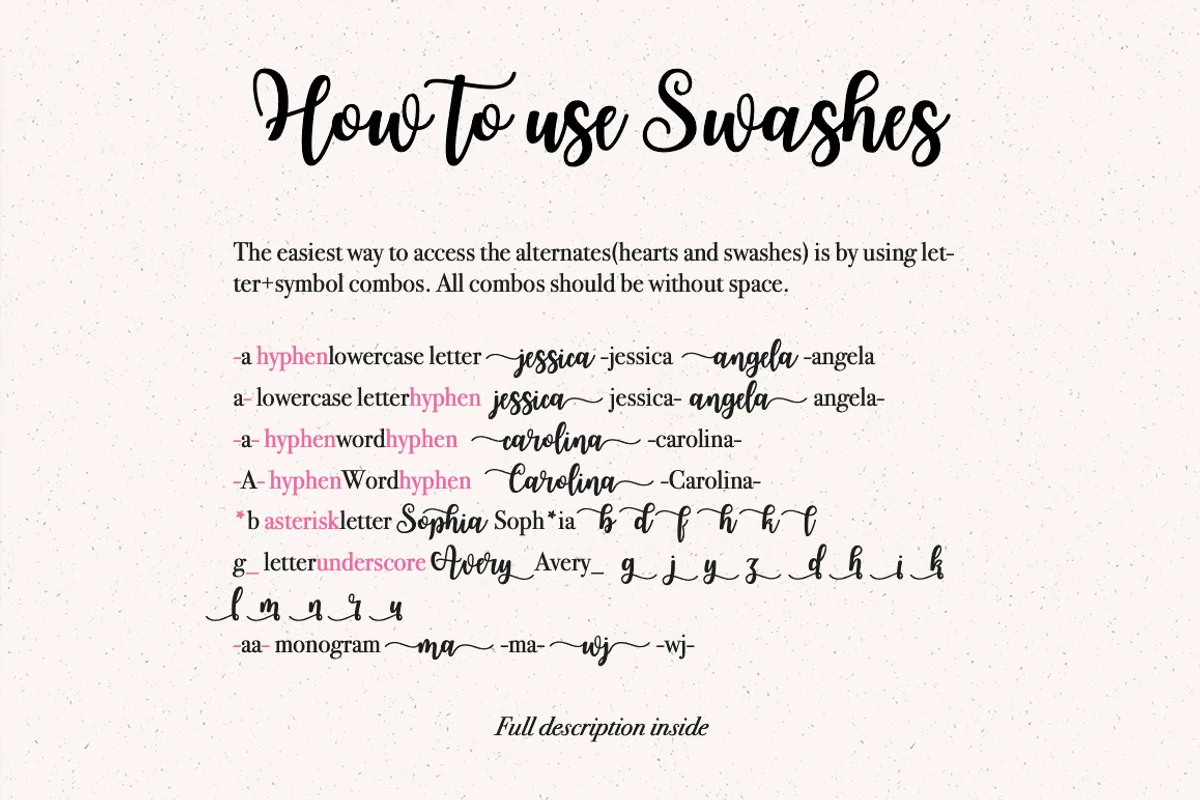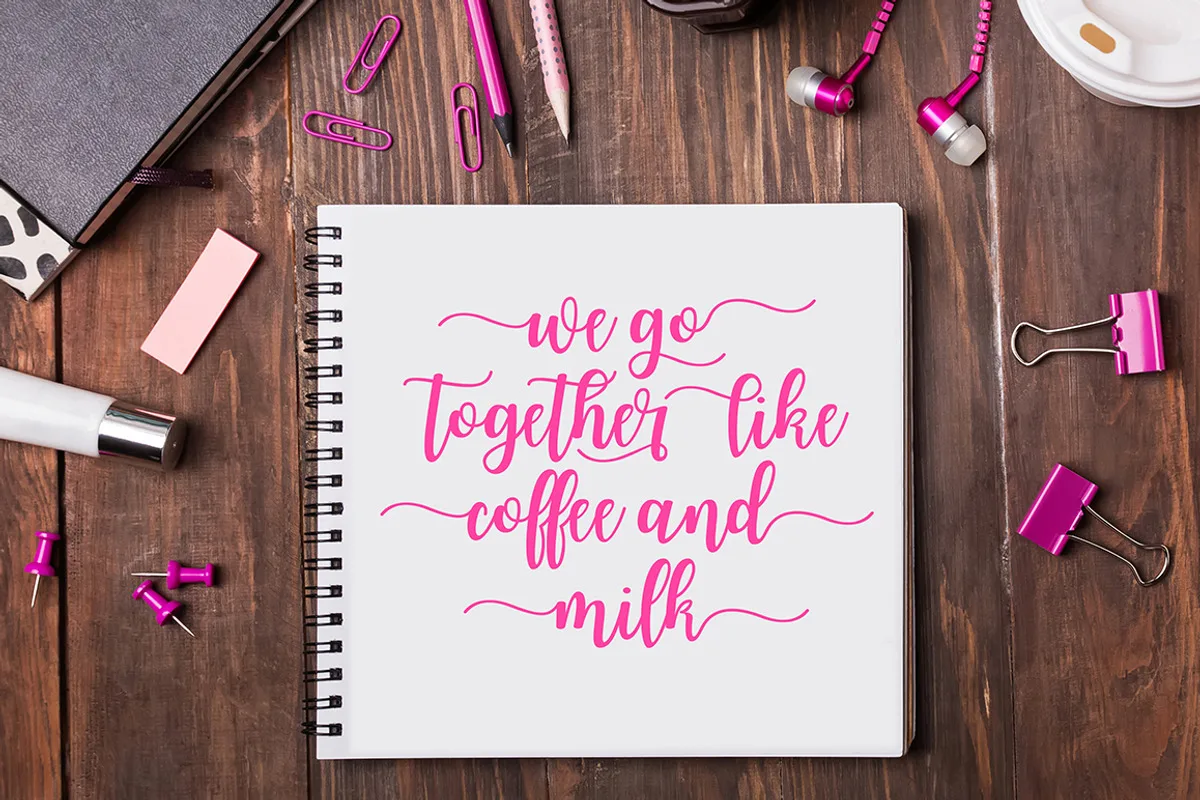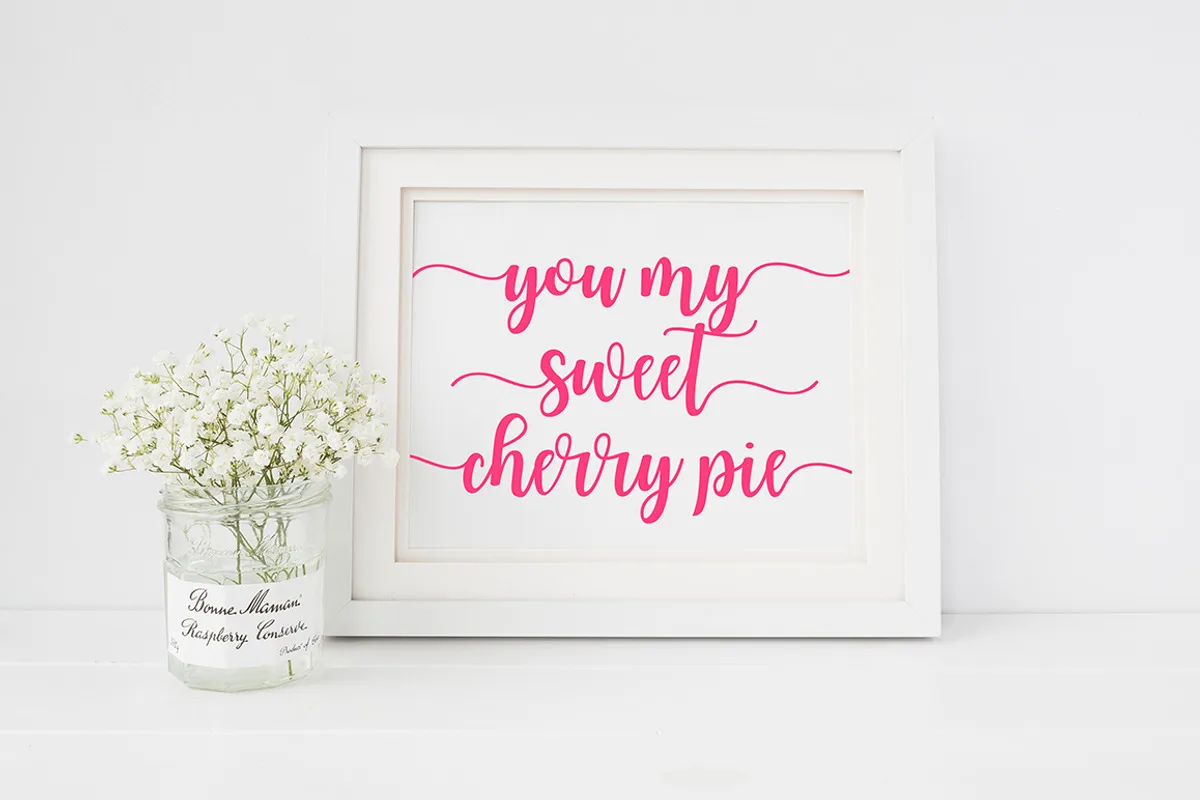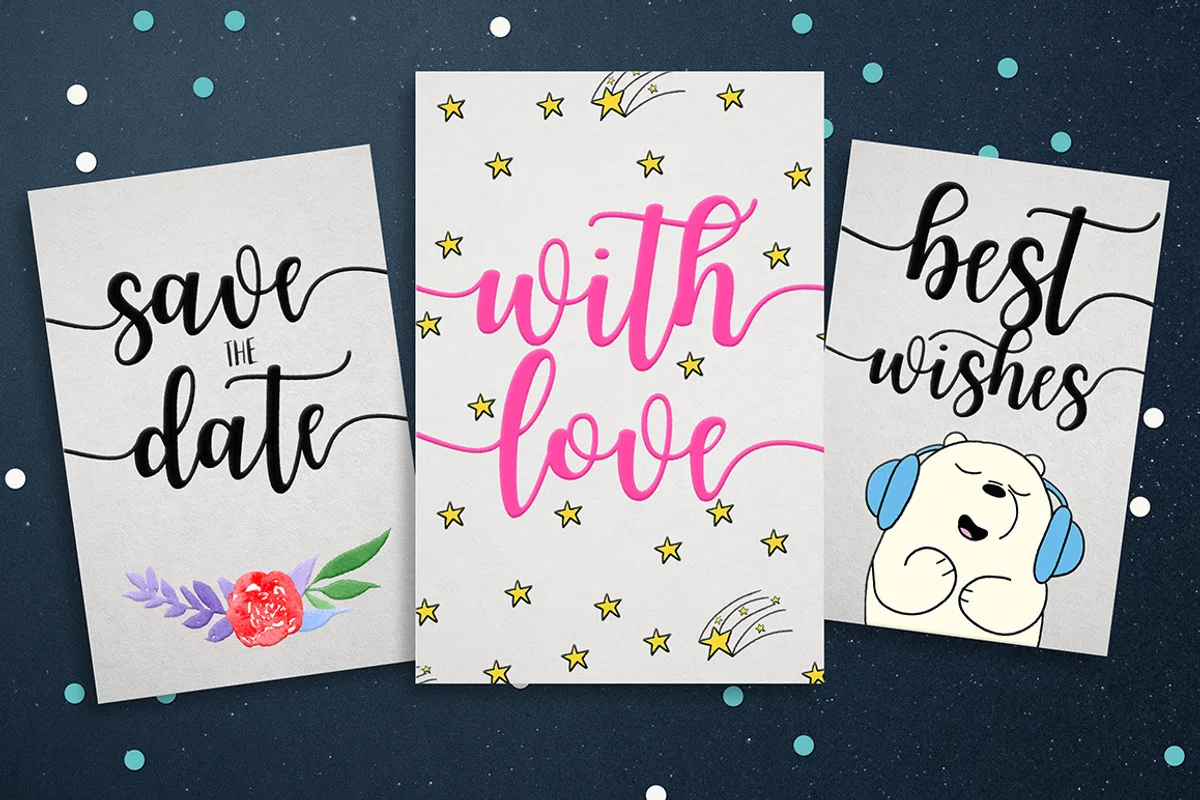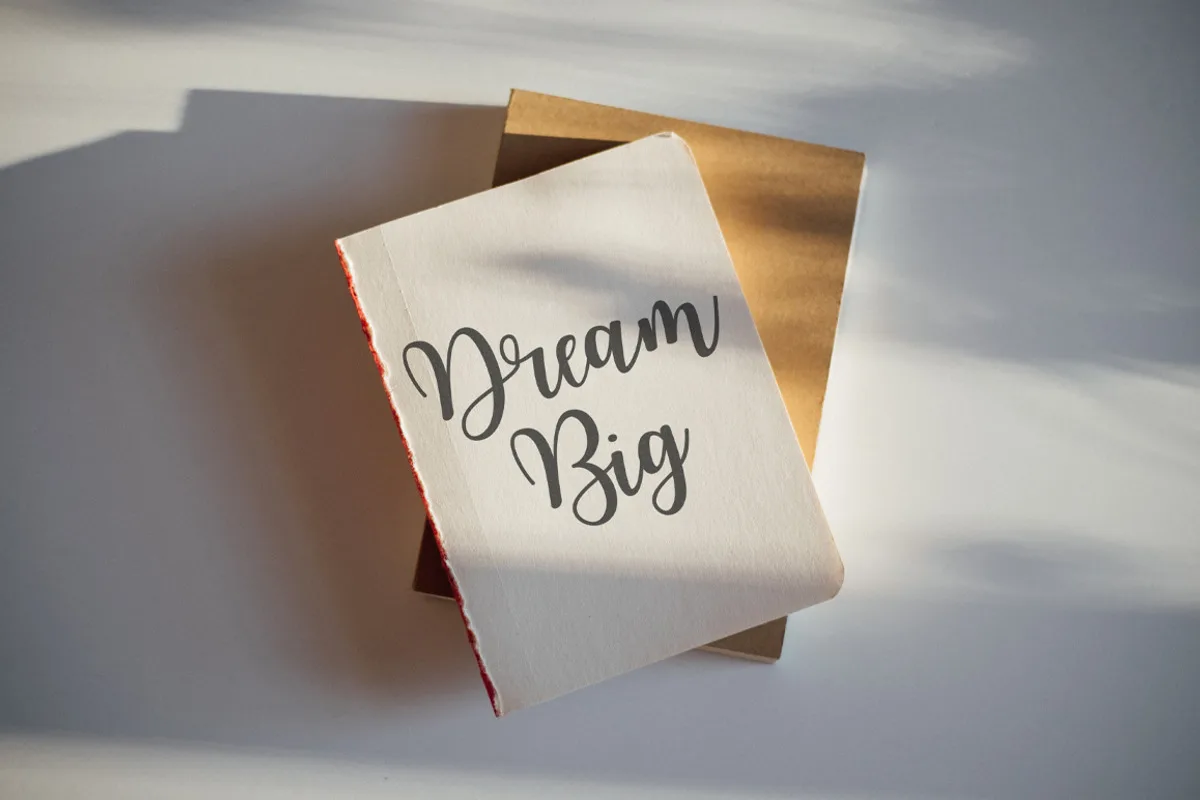
Joshico is a new fresh handmade calligraphy font. Very suitable for greeting cards, branding materials, business cards, quotes, posters, and more! The font includes many alternative characters.
- Basic Latin A-Z and a-z
- Support ALL European Languages
- Numbers
- Symbols
- Alternates
- Ligatures
- Initial and Final Swashes
- 420+ Glyphs